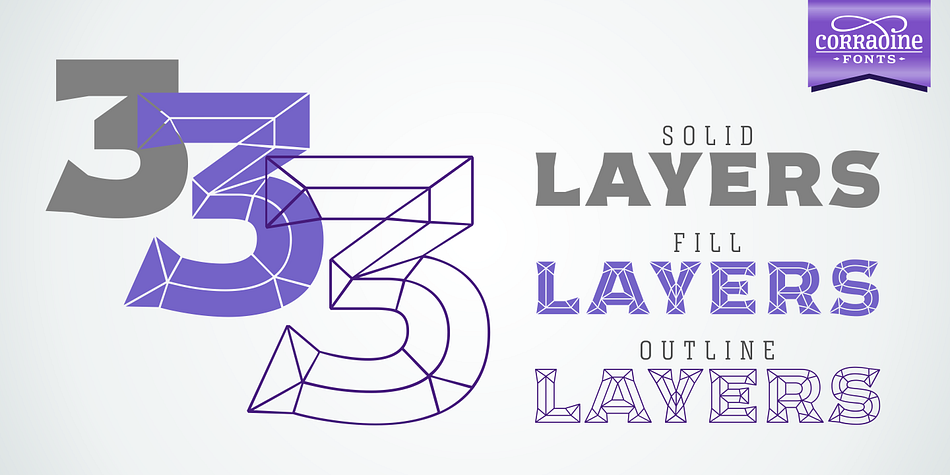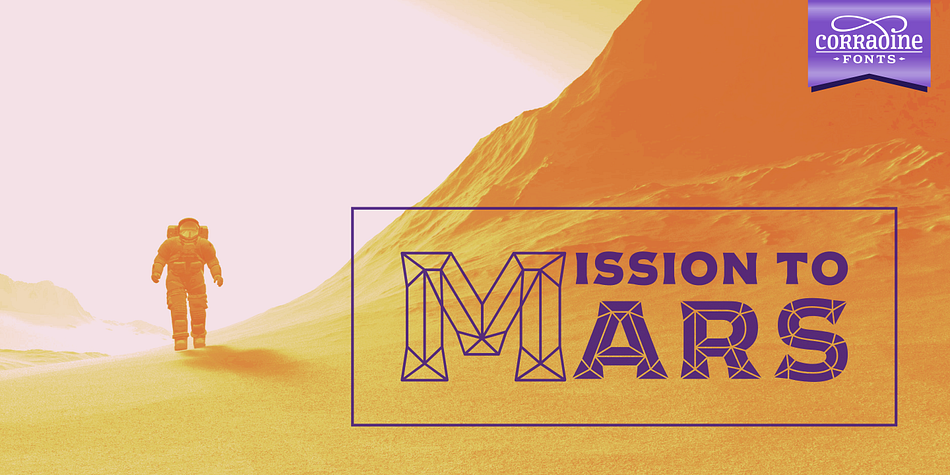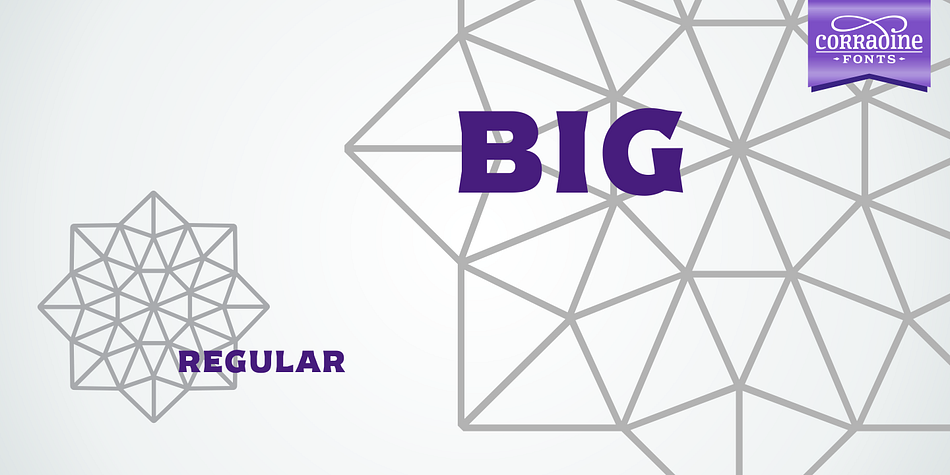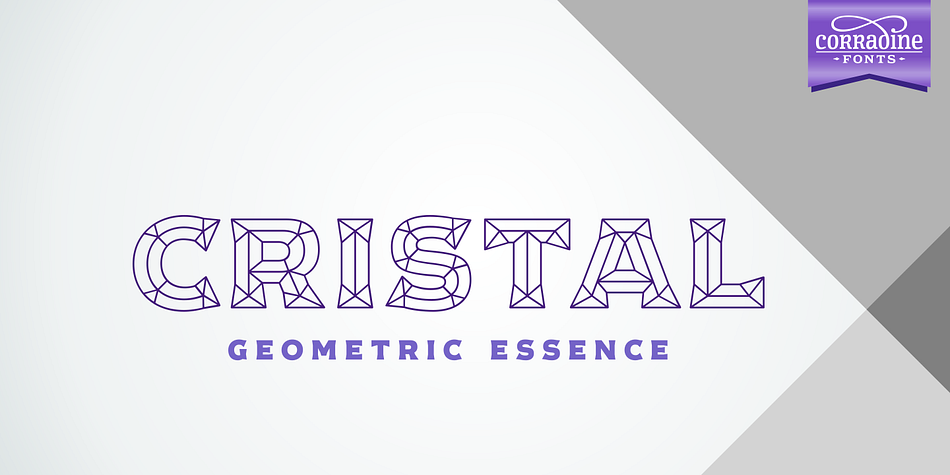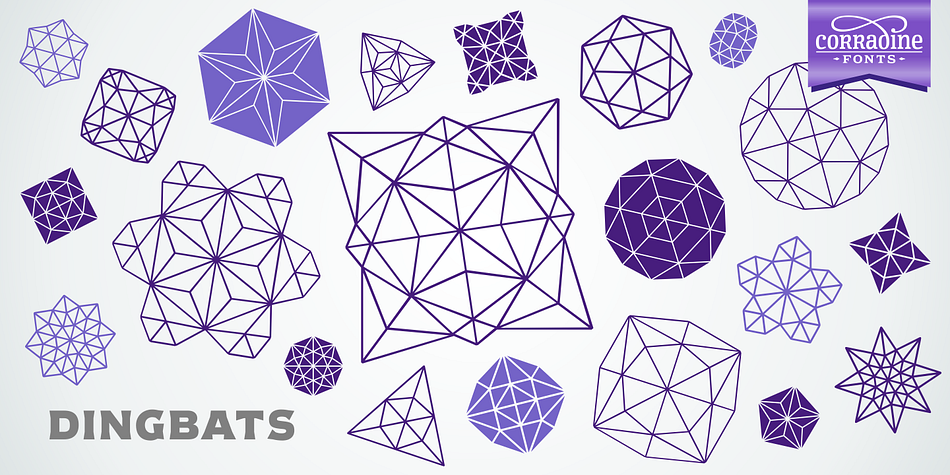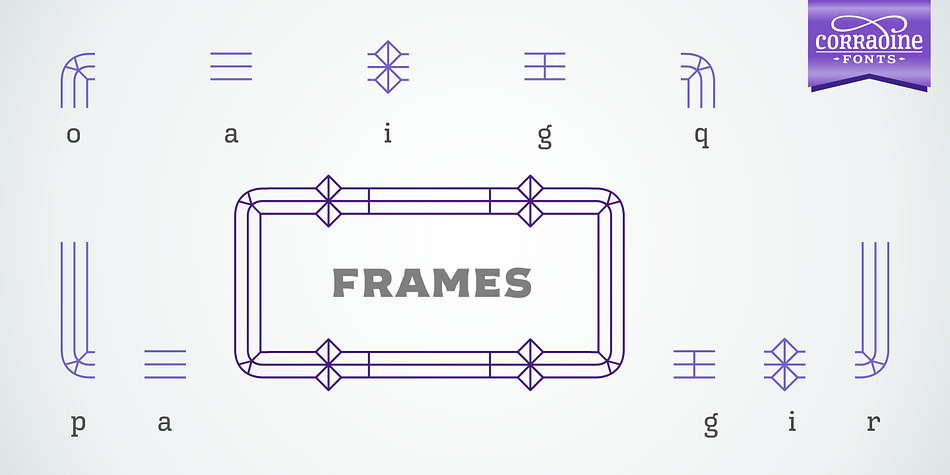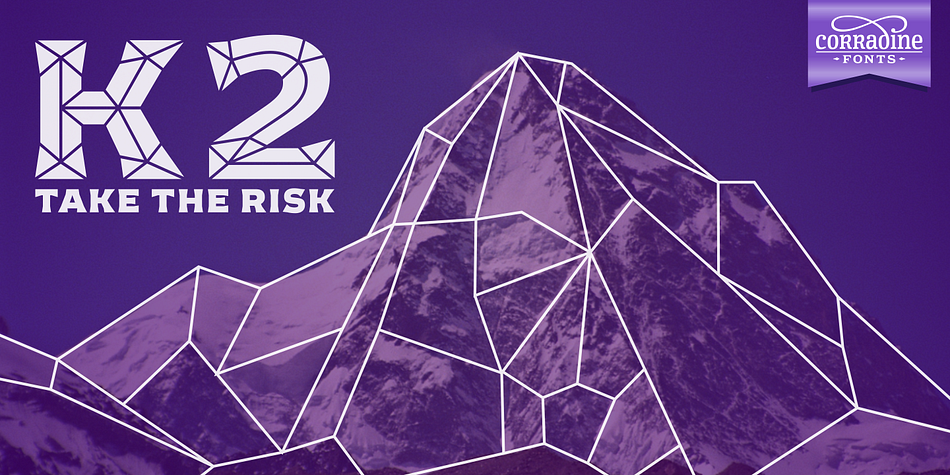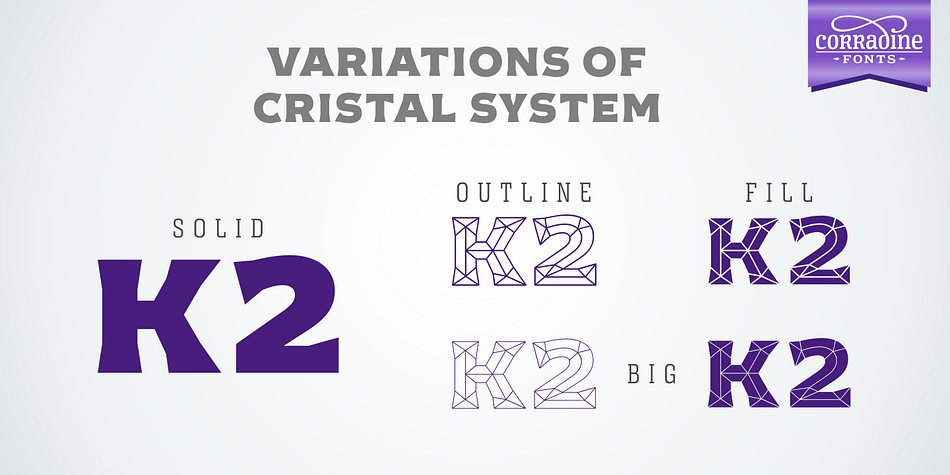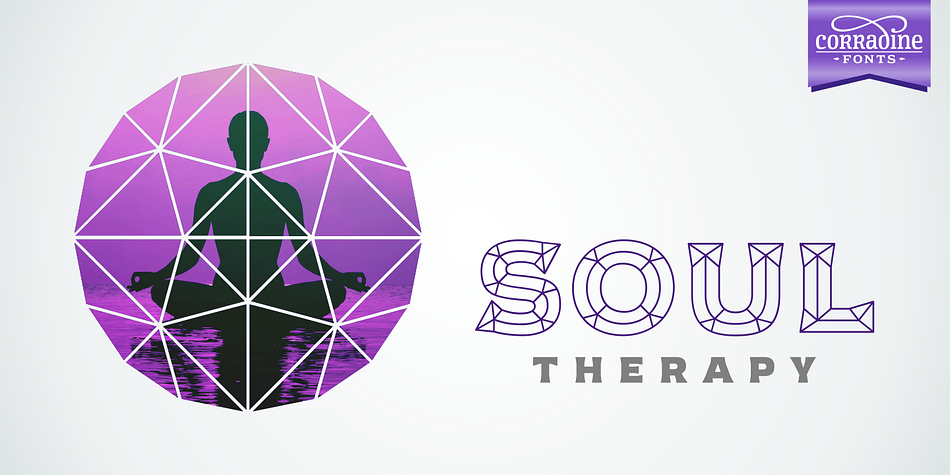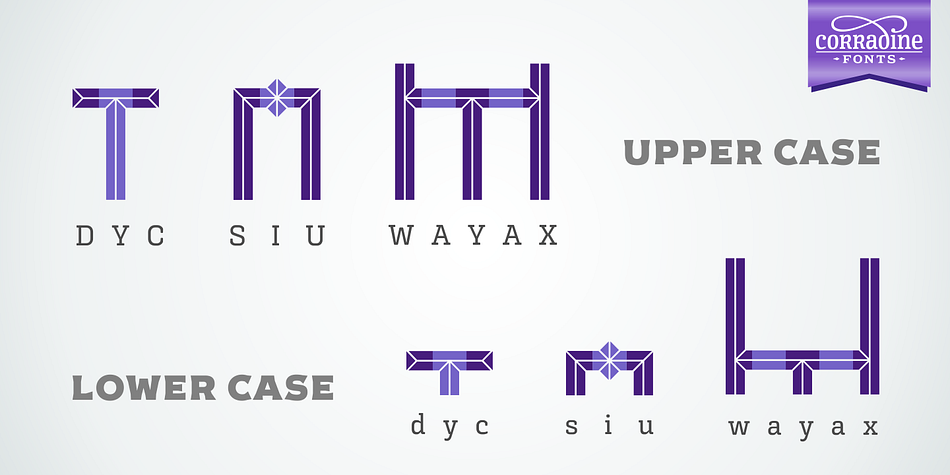
Designed by Manuel Eduardo Corradine, Cristal is a dingbat, novelty and display serif font family. This typeface has fifteen styles and was published by Corradine Fonts.
Cristal is a modern typeface inspired in the cuts of a bevel effect. Its lines build each letter as a cutted gem giving an unique elegant aspect. It comes in two weights to be used at different sizes and has positive and negative versions. Also has a solid version that allows compose more legible texts.
Cristal Dingbats and Cristal Frames are two essential complements to obtain a great typographic system of 15 fonts.